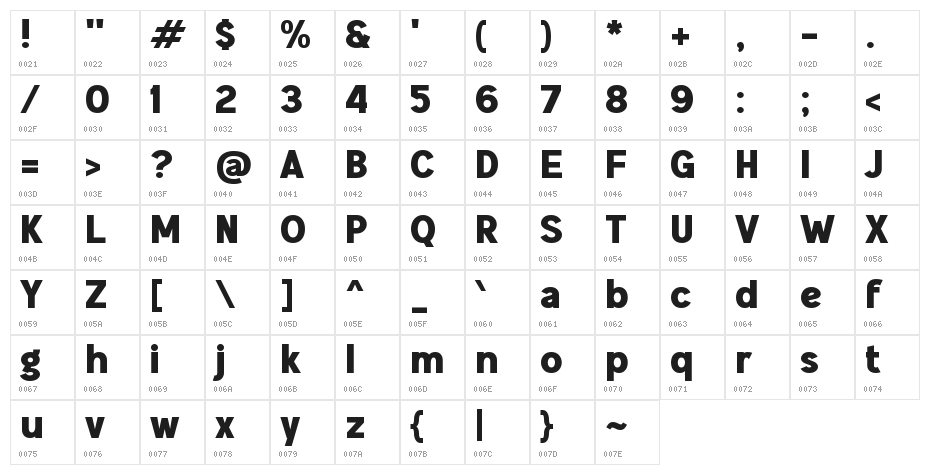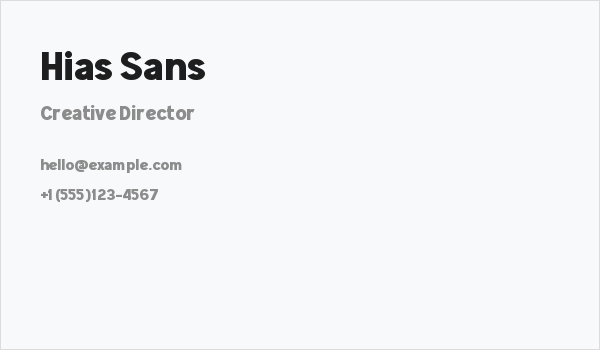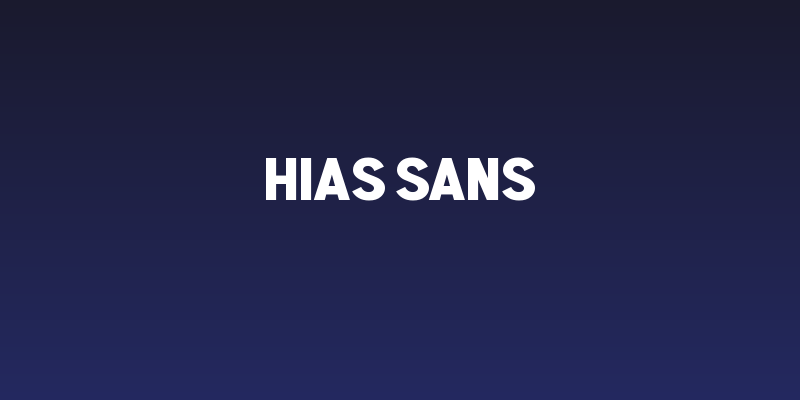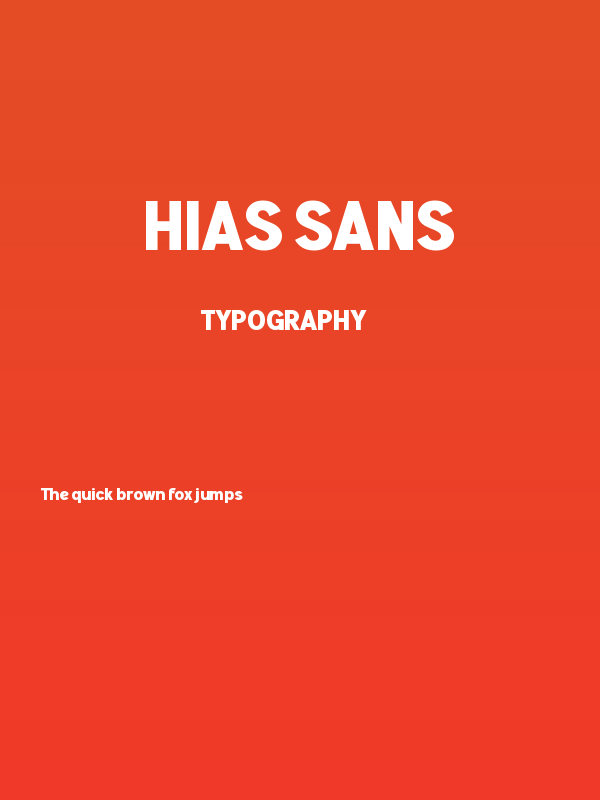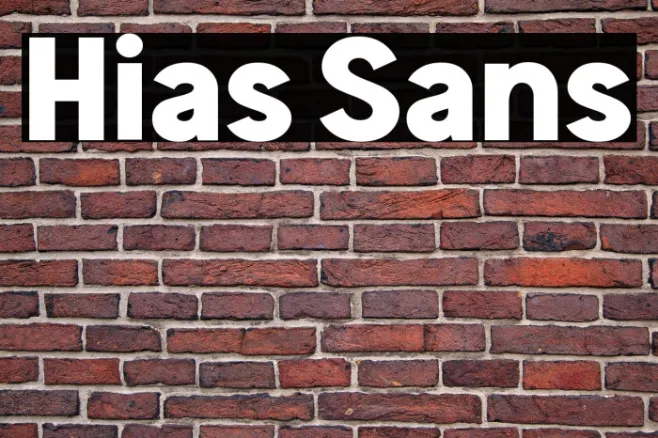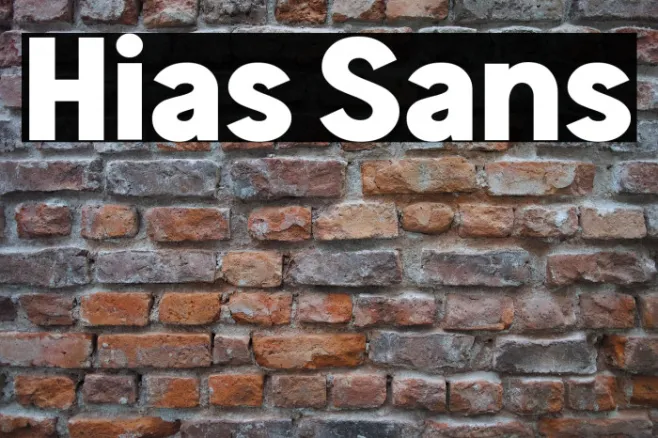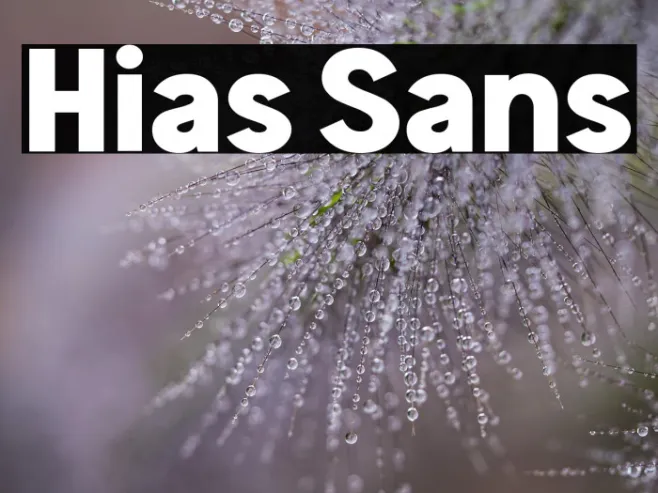
Hias Sans Font
Hias Sans Description
This font features a bold and robust sans-serif style with clean lines and a modern aesthetic. The characters are uniformly thick, providing a strong presence on the page. Uppercase and lowercase letters are well-proportioned, maintaining a consistent weight throughout. The numerals are clear and easily distinguishable, making them suitable for various applications. Special characters are designed with the same boldness, ensuring they stand out. The overall design is straightforward yet impactful, making it versatile for different uses.
HIAS-SANS UPPERCASE
HIAS-SANS LOWERCASE
HIAS-SANS OTHER CHARS
| Use Case | Headlines, Logos, Advertising |
| Proposed Projects | Ideal for branding, advertising, headlines, and digital media where a strong, modern look is desired. |